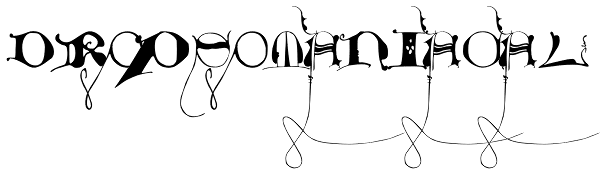
Dropsomaniacal
Drop Caps happen. They started off life as decorated initials way back when in the days of illuminated manuscripts. Then printing came and they became the work of the rubricators and then somewhere soon after printing began, at least by the 1490’s...